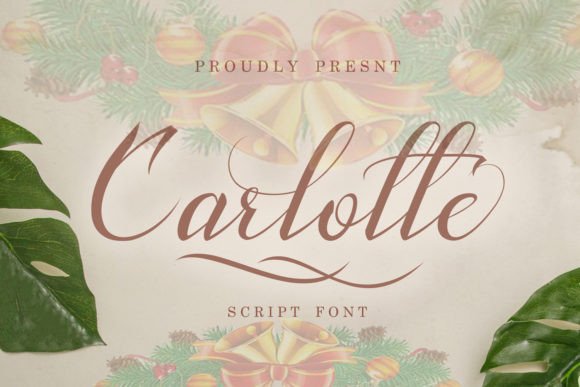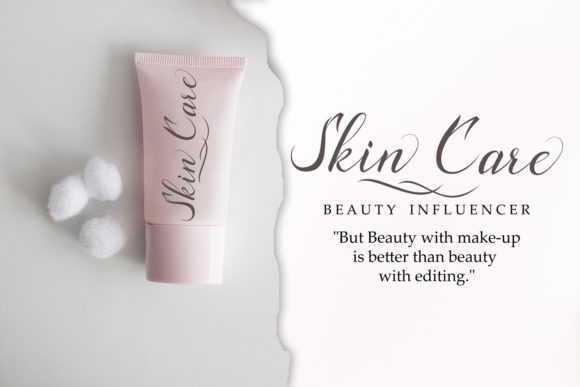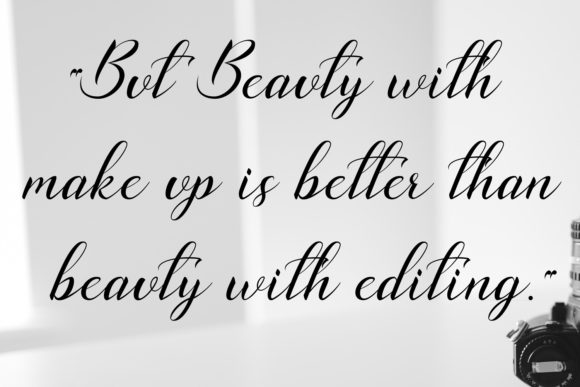
About Carlotte Font
Carlotte is a romantic and beautifully flowing handwritten font. It is suitable for logos, business cards, weddings, t-shirt designs, books, magazines, quotes, fashion, watermarks, invitations, signatures, packaging.